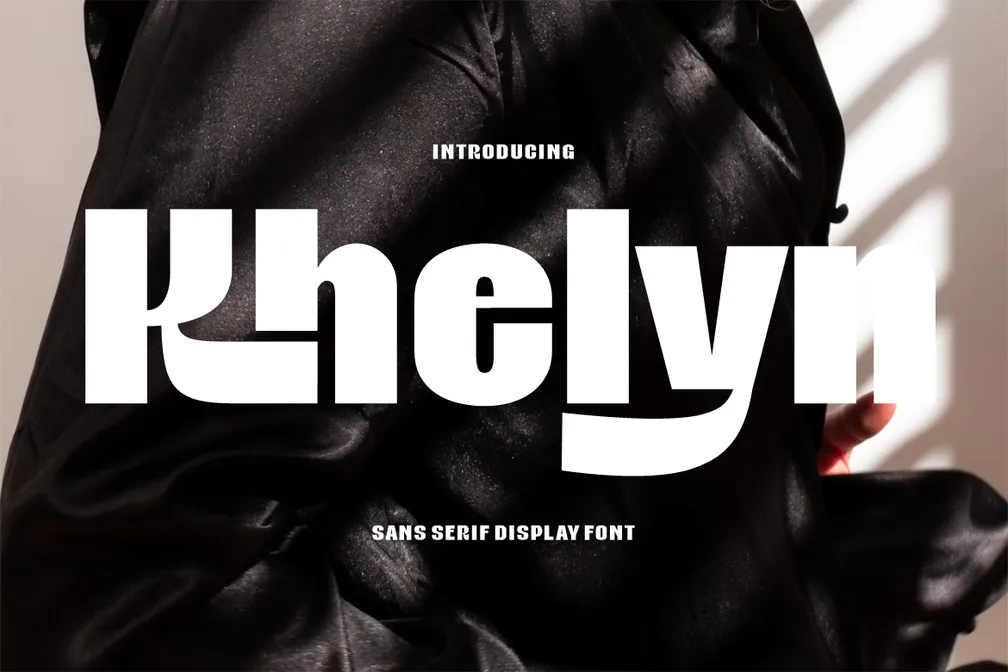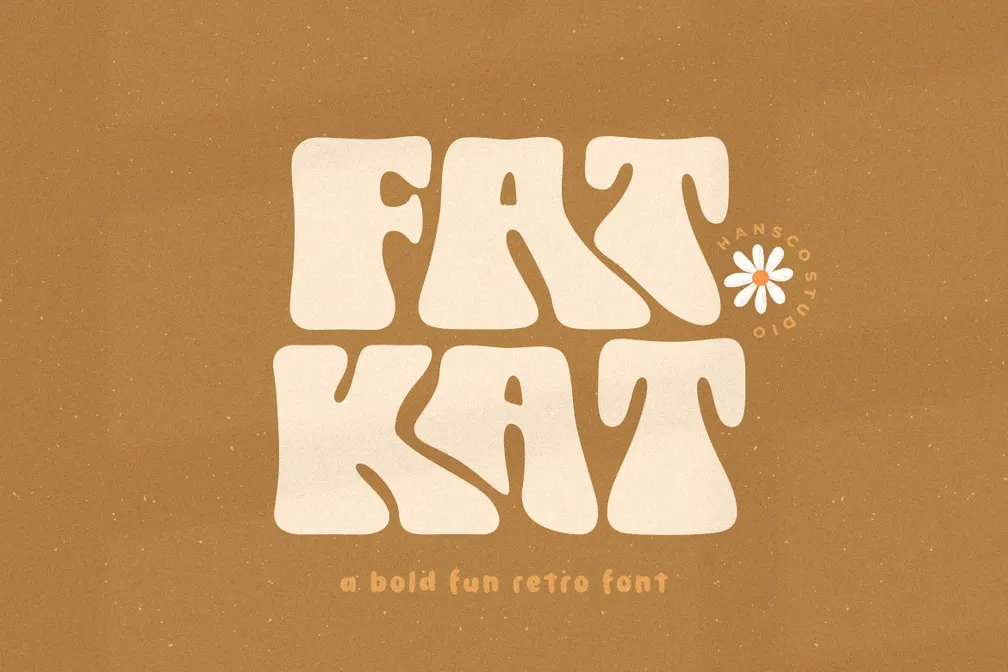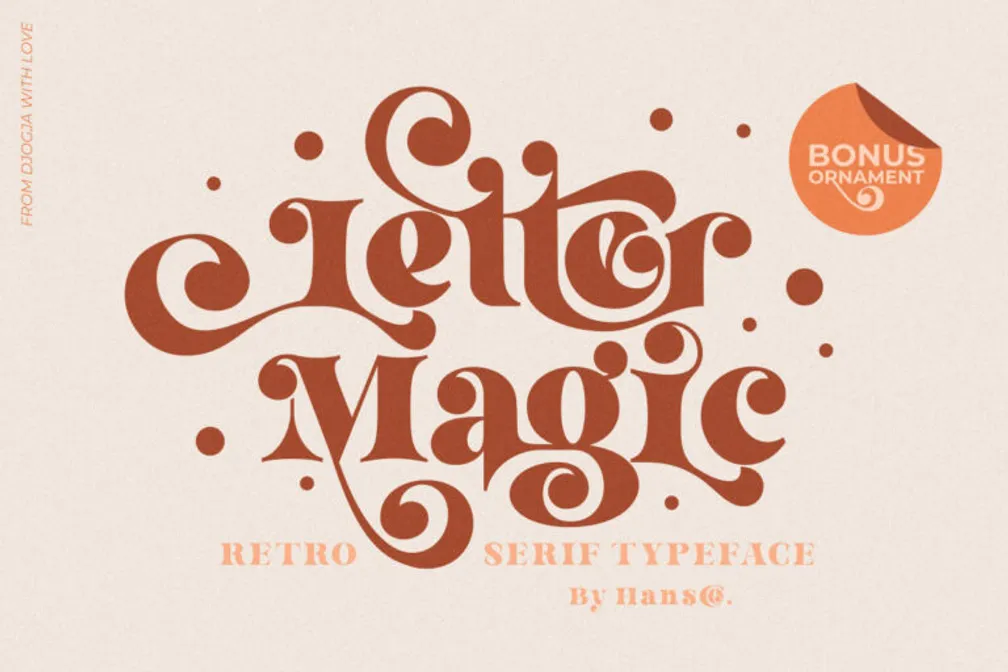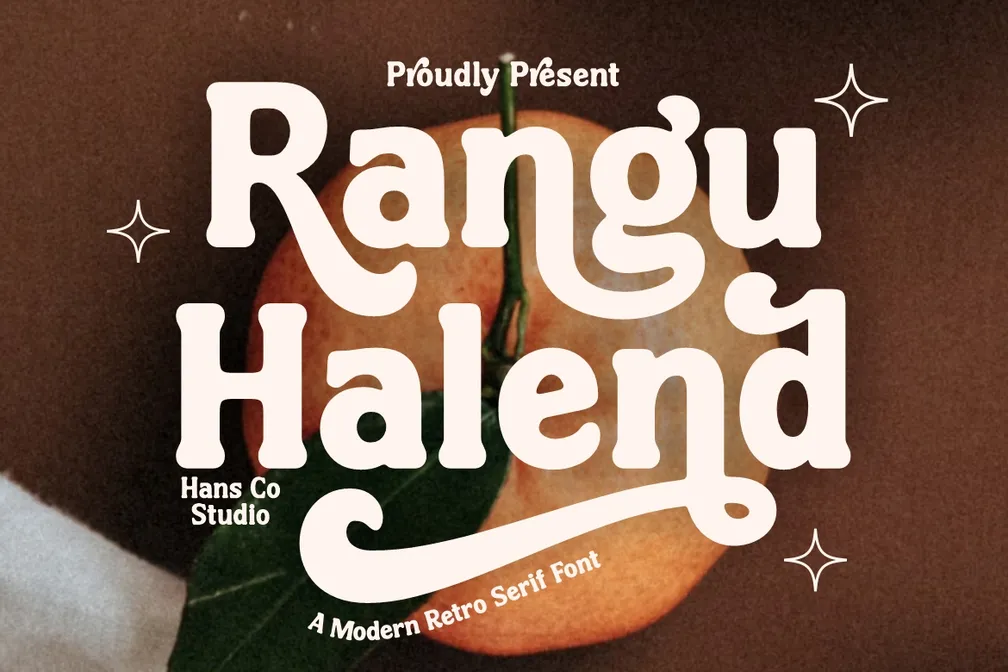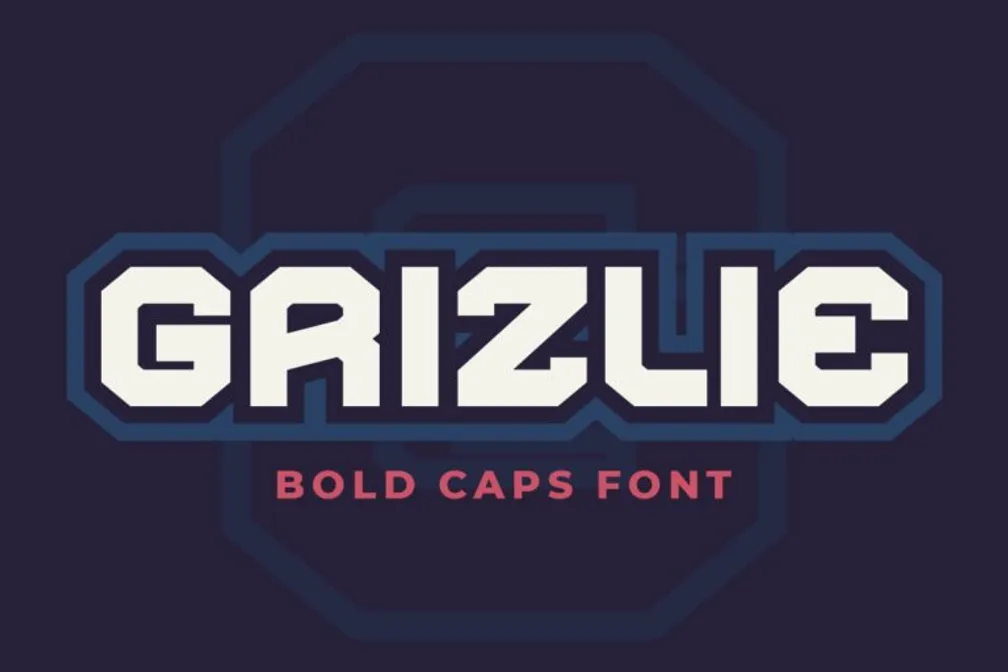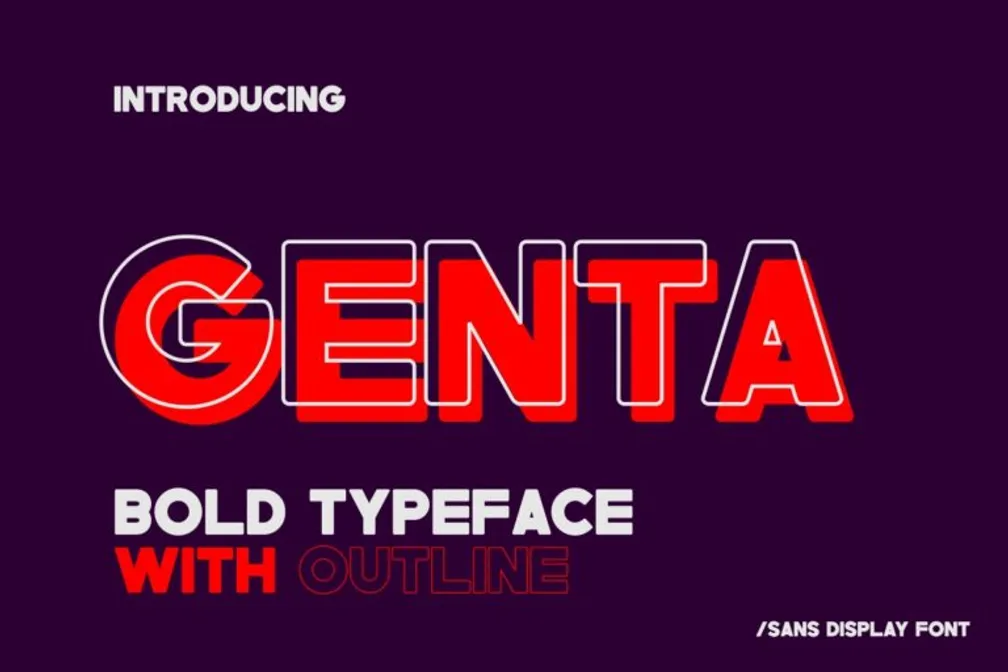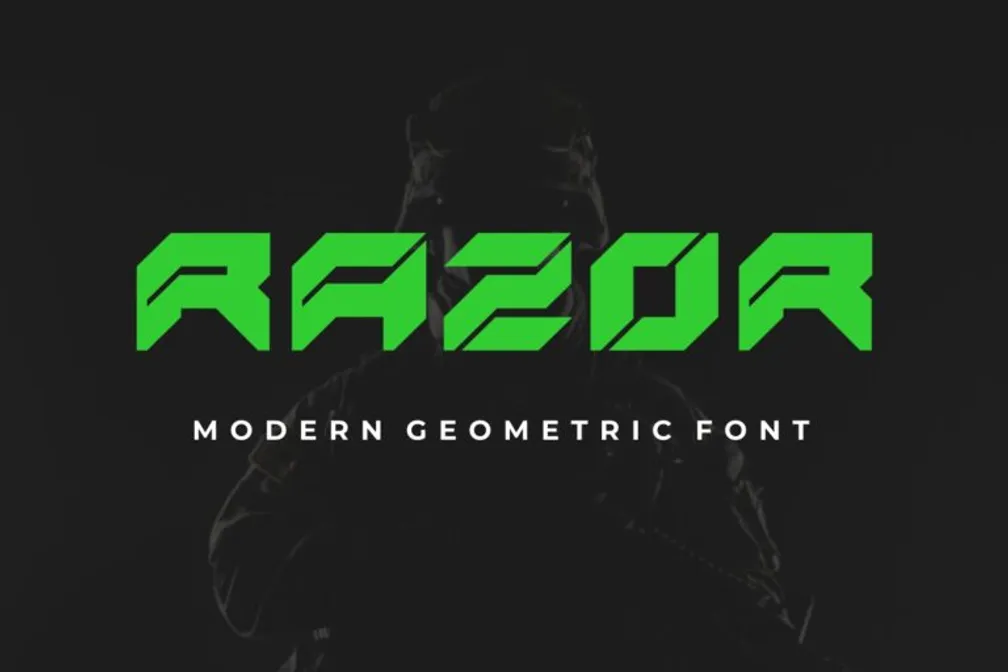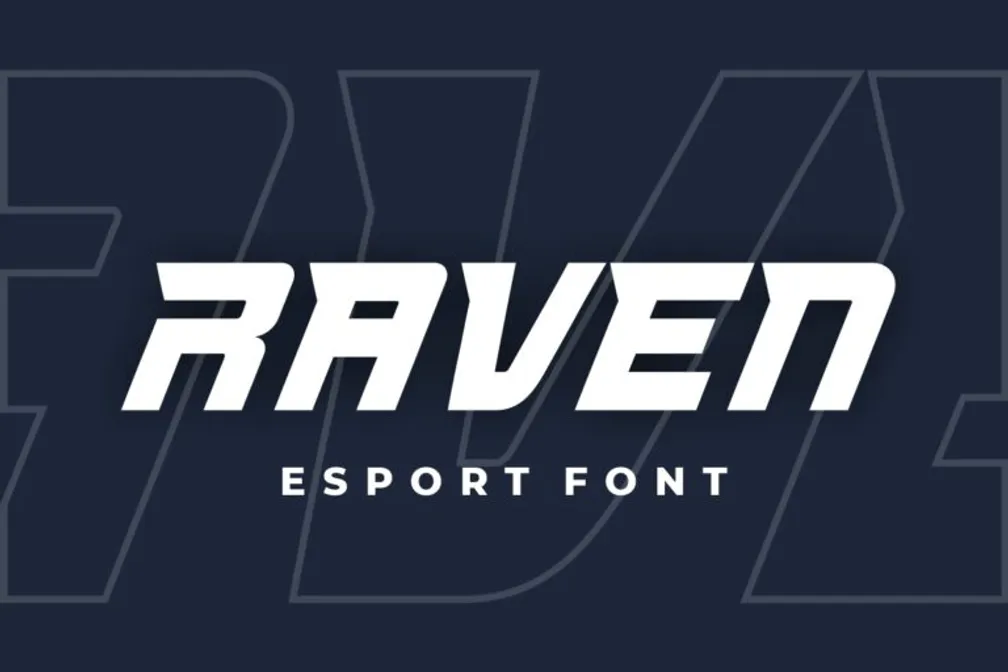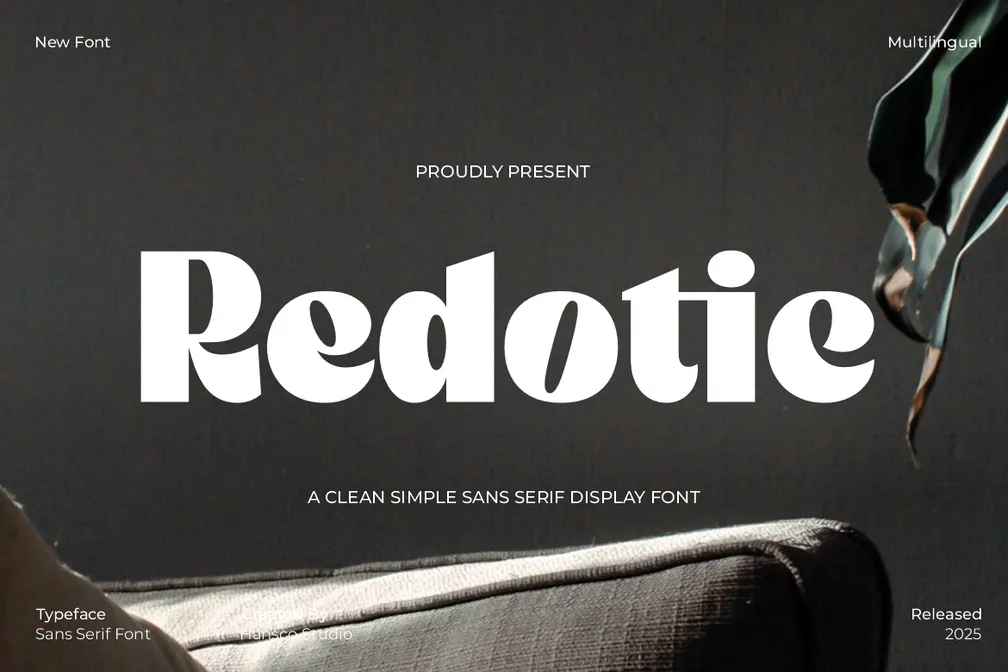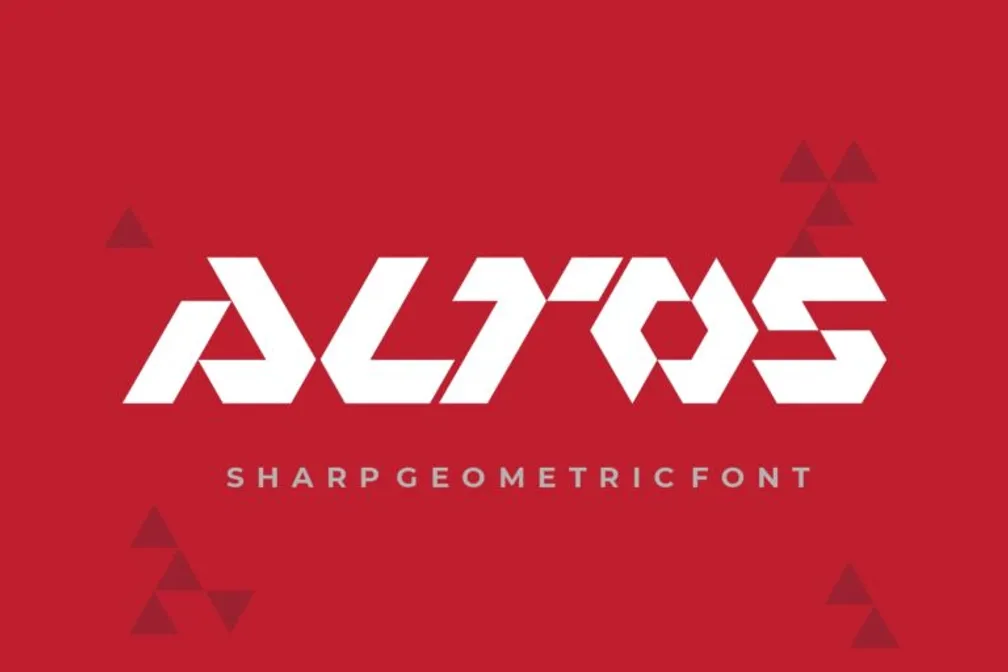
Boldness naturally attracts attention, and the same principle applies to typography. That is why modern bold fonts remain a favorite choice for designers who want their visuals to feel stronger, more commanding, and instantly noticeable.
• Modern bold fonts help brands capture attention, convey confidence, and make visuals more engaging across marketing and design projects.
• Typography plays a major role in branding, with growing market demand and personalization trends increasing the importance of strong font choices.
• Designers can choose from diverse bold styles, including sans serif, retro, and futuristic fonts, to match different branding needs and creative directions.
Why Bold Fonts Matter for Your Brand
With this in mind, modern bold fonts are a key component for brands to make their visuals look more convincing.
Bold Modern Fonts: Top Recommendations
1. Khelyn
A tall, bold sans serif font with clean strokes, generous spacing, and a distinctly modern character throughout.
Perfect for: Logotypes, brand identity, Canva, and headline design projects.
2. Redotic
An example of bold and modern fonts with balanced proportions and a clean modern personality in every letterform.
Perfect for: Packaging, stickers, YouTube thumbnails, websites, and magazine layouts.
3. Cloth Fate
A bold sans serif font with clean geometry and strong structural balance across each character.
Perfect for: Brand identity, Cricut projects, posters, and Canva applications.
4. Riuka
A neutral aesthetic sans serif font that reads as modern and approachable across multiple design contexts.
Perfect for: Digital products, social graphics, and versatile brand identity work.
5. Smothy
An example of modern bold fonts with smooth, rounded edges that communicate warmth alongside confident visual authority.
Perfect for: Lifestyle brands, logos, and poster design.
6. Milky Bun
A retro bold display font with a rounded 80s character that suits labels, logos, and brand packaging.
Perfect for: Headlines, posters, and comic book design.
7. Chales Rientta
A casual display sans serif that includes ligatures and a PUA-encoded glyph set.
Perfect for: Branding, logos, and product label design
8. Magic World
A retro bold 80s serif font with strong expressive energy that carries an authentic vintage-modern appeal.
Perfect for: Posters and brand campaigns.
9. Bakso Menu
A font that uses chunky bold retro letters with high visual impact for nostalgic and street-style brand aesthetics.
Perfect for: Labels, posters, and food brand identity projects.
10. Magic Seventies
A font that combines retro swash accents and bold display letterforms that add groovy energy to creative design work.
Perfect for: Entertainment, lifestyle, and nostalgic brand identity.
11. Fat Kat
A funky retro bold sans serif with alternating stroke thickness that adds playful character to logos and labels.
Perfect for: Modern retro campaigns and social media brand visuals.
12. Letter Magic
A font that combines retro serif charm with decorative swashes and ligatures.
Perfect for: Artisan logotypes and editorial headers.
13. Retro Harmony
A font that offers a vintage serif look with bold, readable forms that balance decorative charm and practical clarity.
Perfect for: Heritage brands, boutiques, and print-focused design.
14. Rangu Halend
A classic retro serif that communicates authenticity, timeless visual character, confidence, and a historically grounded personality.
Perfect for: Print and digital applications.
15. Sunday Eighties
A bold retro vintage font featuring expressive curly letterforms that bring a fun, nostalgic feel to any design.
Perfect for: Lifestyle-related, packaging, and sticker design.
16. Grizlie
A masculine all-caps geometric bold font with squared letterforms that convey strength and technical sophistication.